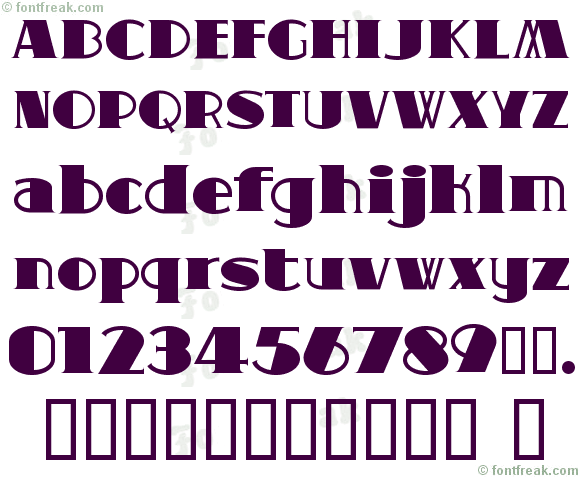
Comic Bold
About Comic
The Comic font by C-font is a playful and engaging typeface that falls into the decorative font category. Designed by Masato Shimojima in 2001, this font brings a sense of whimsy and fun to any project. Characterized by its bold stroke weight and rounded edges, the Comic font features a friendly appearance that is easily readable. The consistent spacing between characters enhances legibility, making it suitable for various applications.
This font shines in a variety of creative contexts. It is ideal for comic strips and graphic novels, where its playful nature can effectively convey humor and storytelling. Additionally, it works well for children’s book covers and educational materials, capturing the attention of young readers with its approachable design. Restaurant menus can also benefit from the Comic font, adding a casual and inviting vibe that encourages diners to explore the offerings. Furthermore, it is a great choice for event flyers and promotional materials, where a lighthearted touch can make a significant impact.
Target audiences for the Comic font include graphic designers, small business owners, and content creators looking to inject personality into their work. Its freeware license makes it accessible for anyone seeking to enhance their designs without additional costs, making it an attractive option for budget-conscious creatives.
What sets the Comic font apart is its ability to blend professionalism with a laid-back aesthetic. Its playful characteristics do not compromise readability, making it versatile for both formal and informal contexts. Whether you are crafting a captivating comic book or designing a cheerful advertisement, the Comic font free download provides an excellent resource to elevate your creative projects. Embrace the charm of this font and let your designs stand out with a touch of fun.
Author C-font